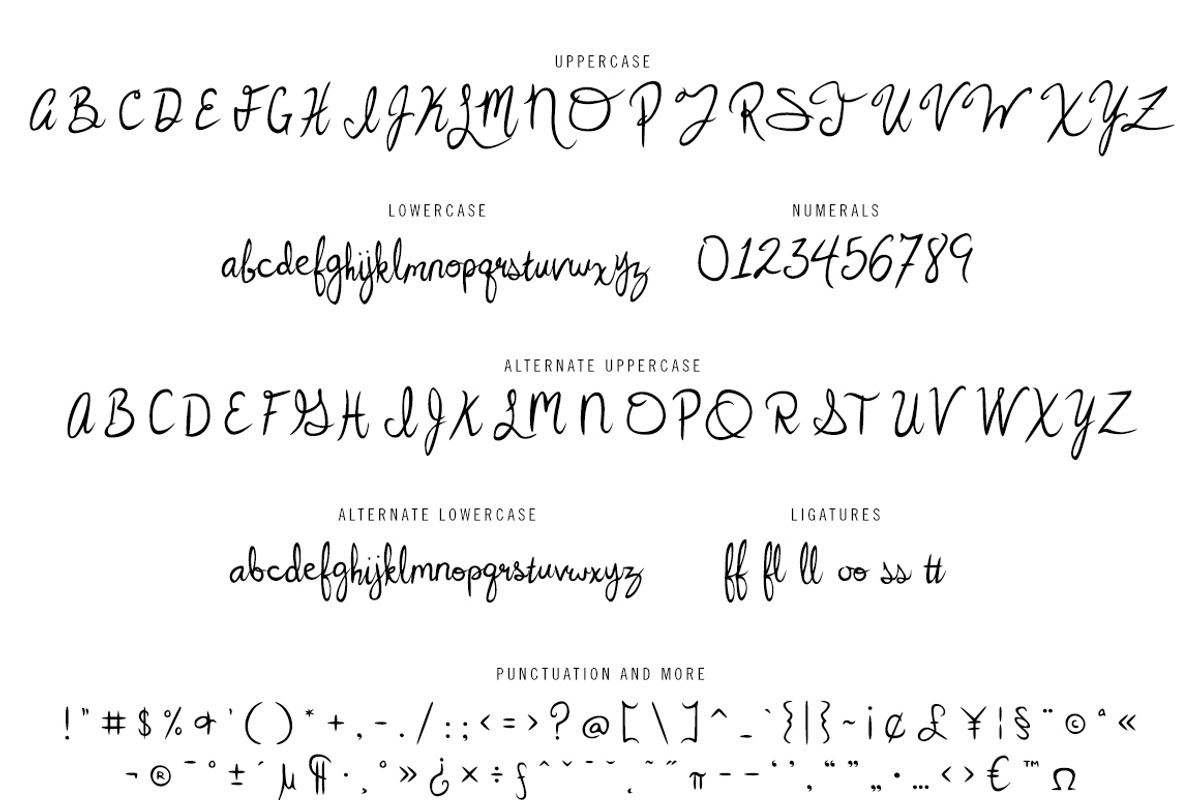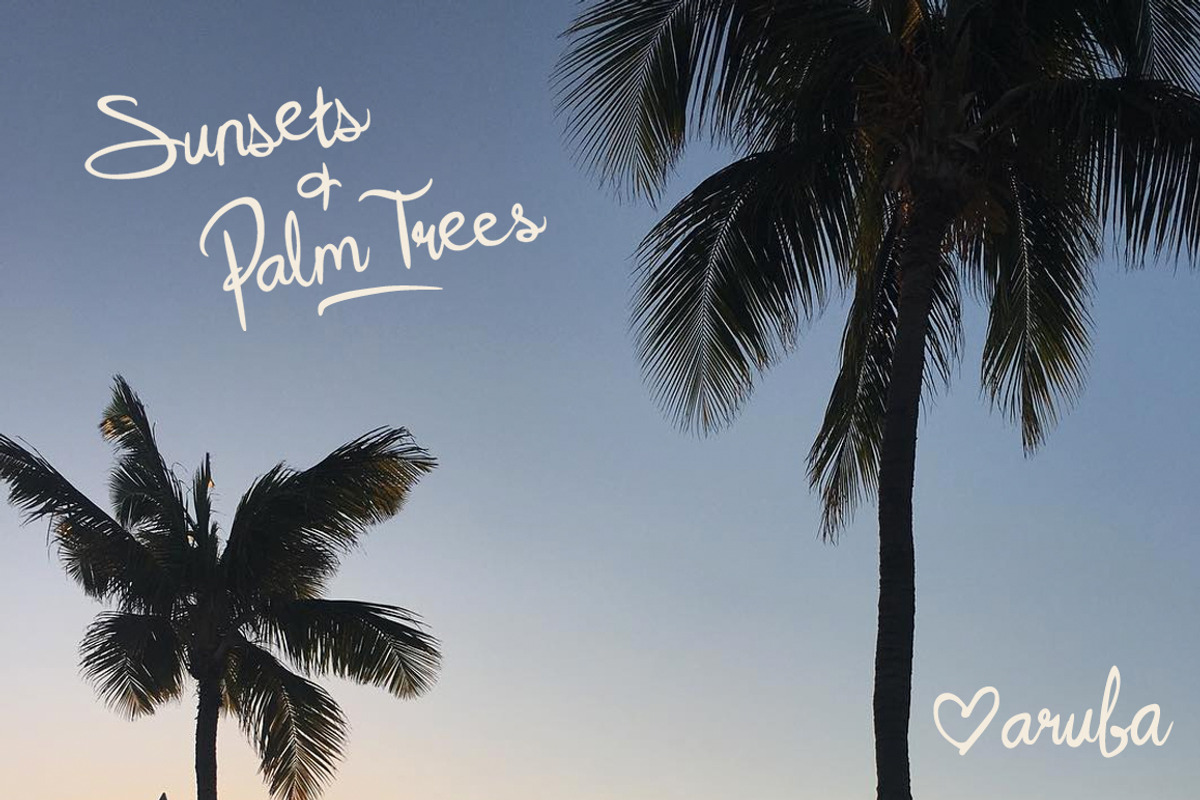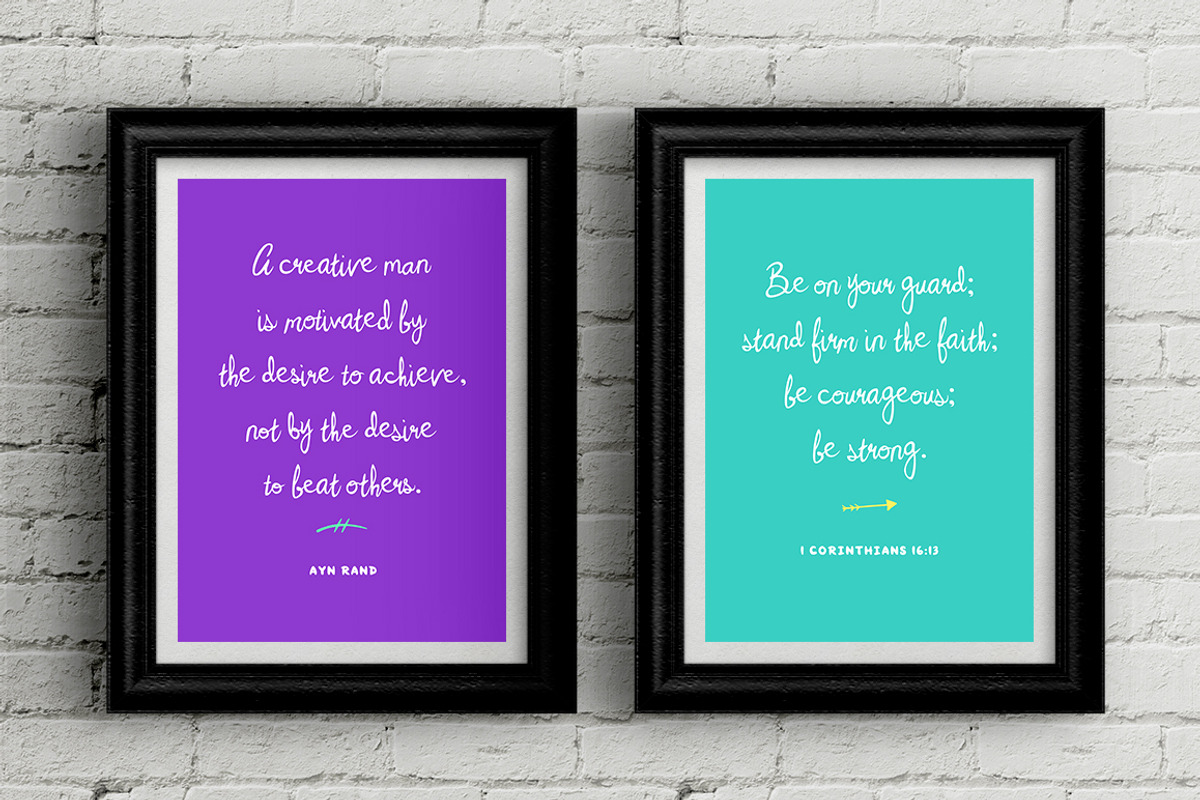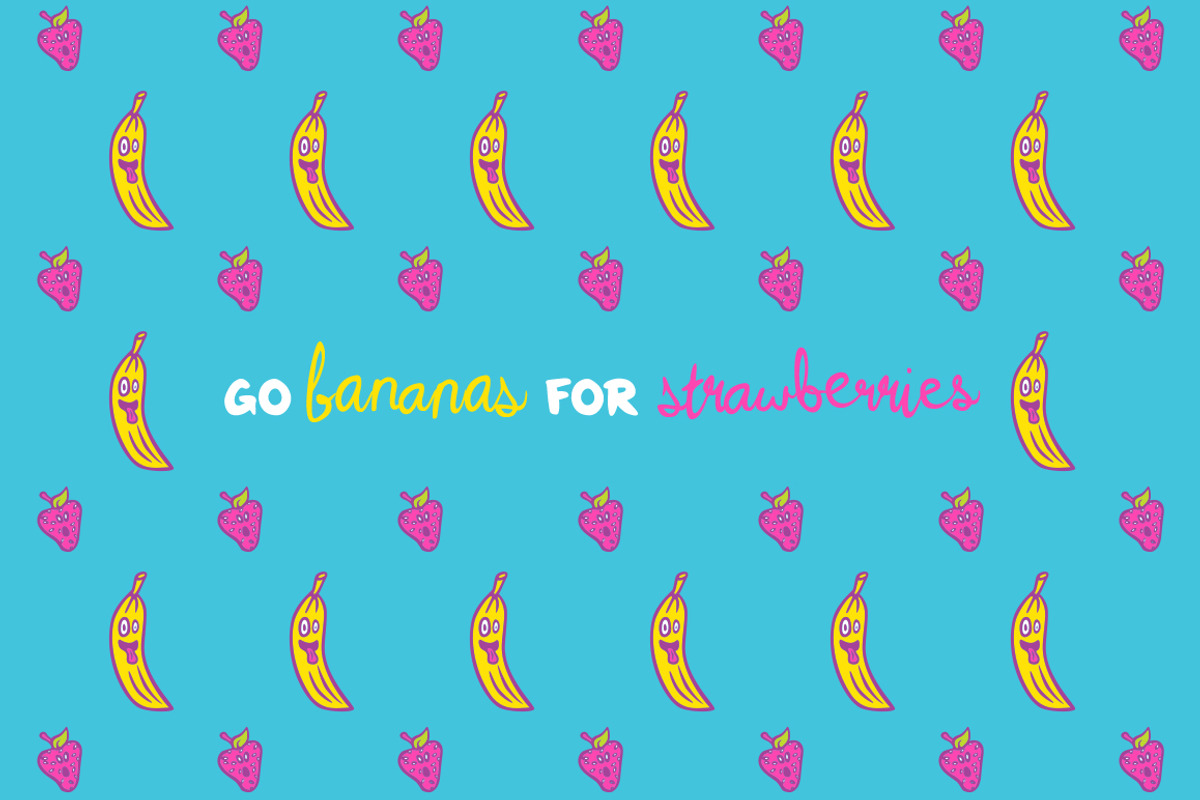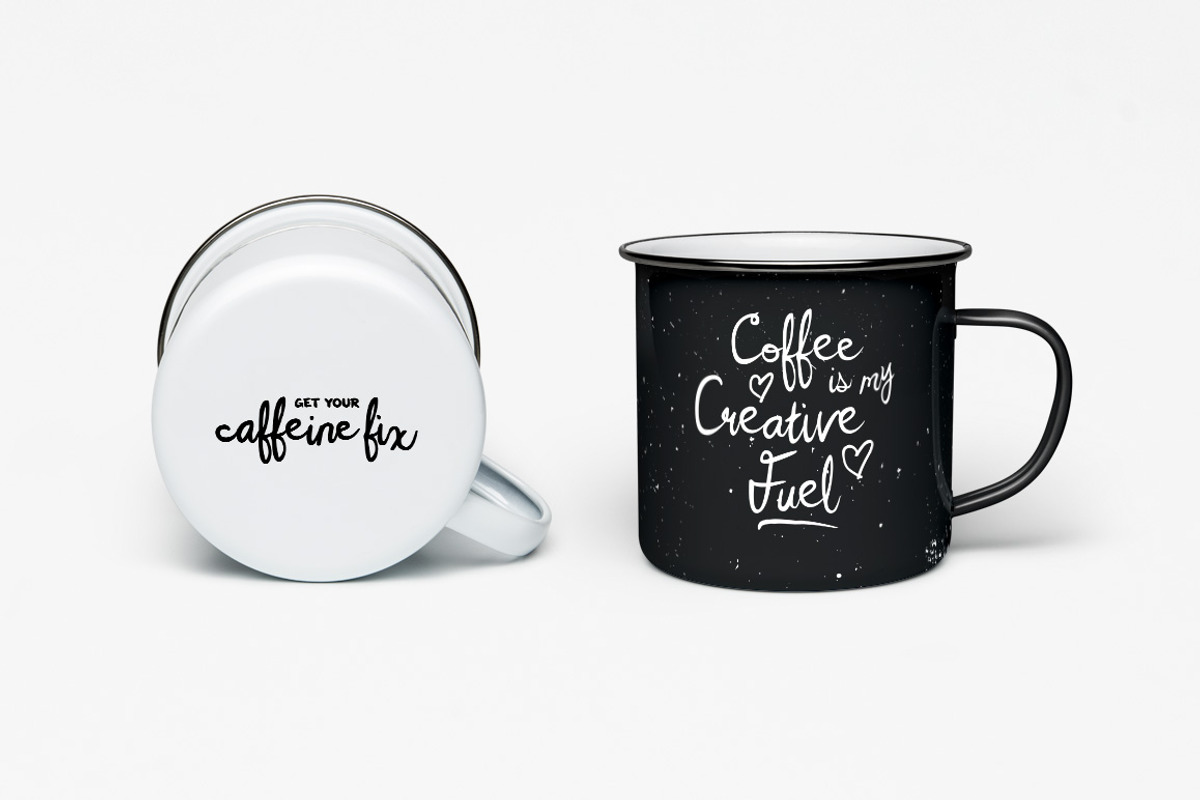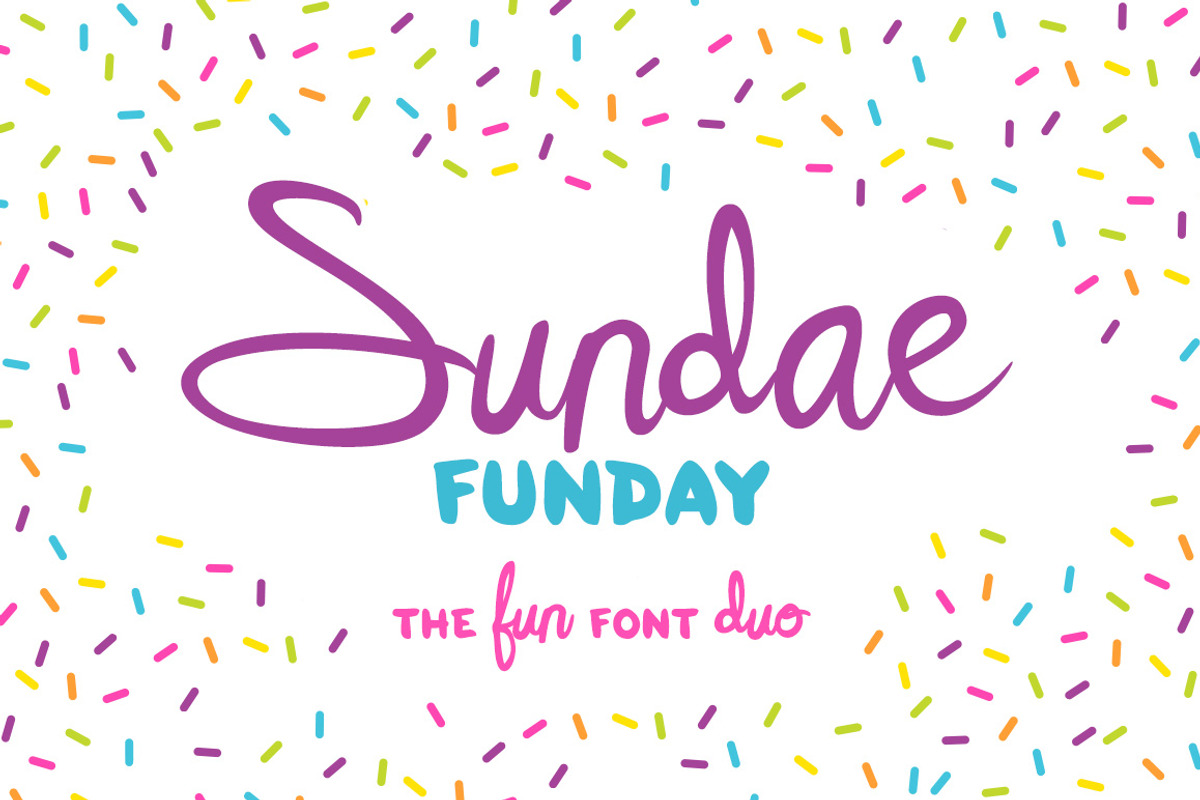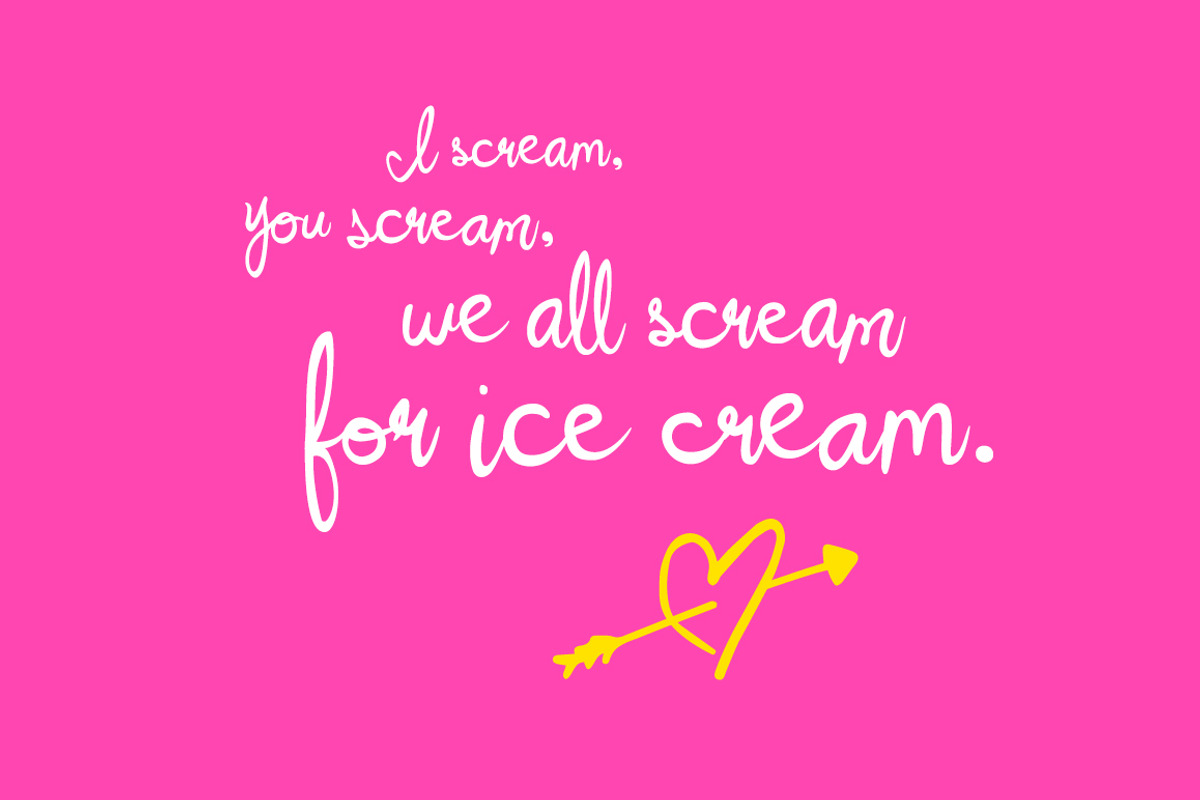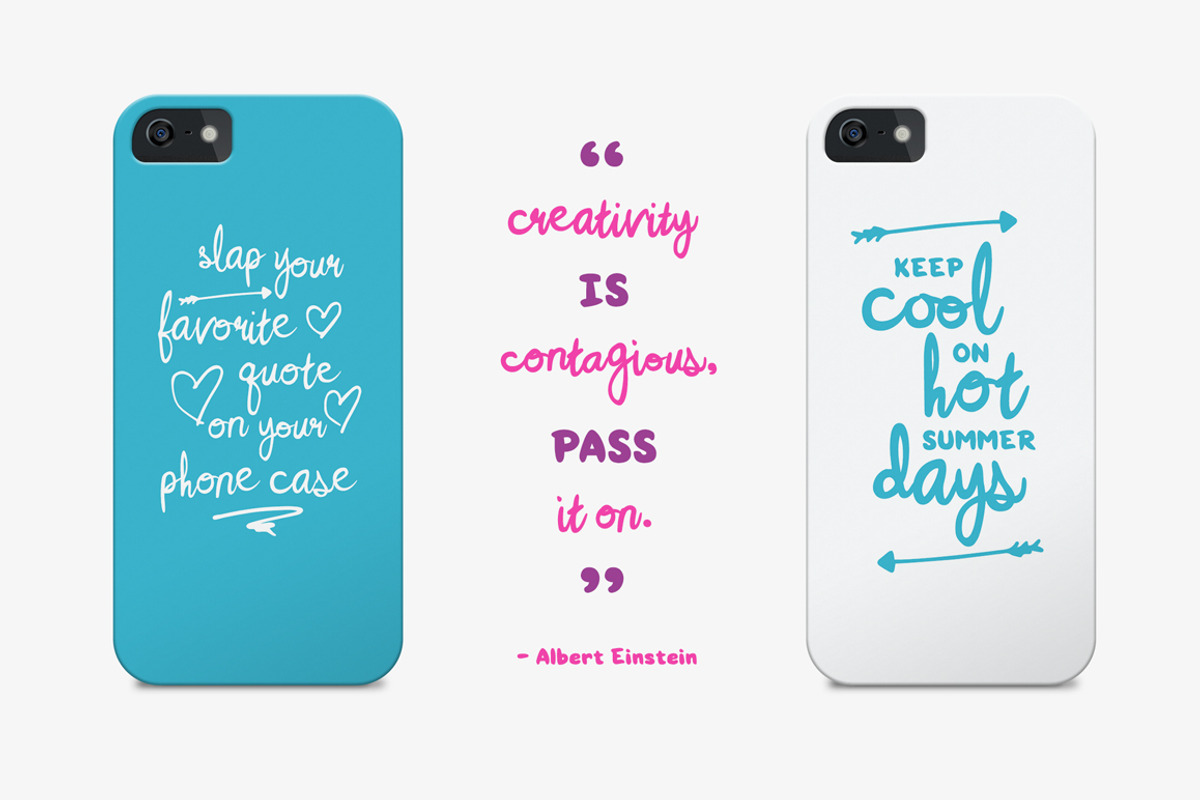
Sundae Funday Font Family
Sundae Funday Font Family by Scott Howard is a font selected for branding, posters, packaging, typography.
- This pack contains a fresh and playful font duo with extras!
- Font Family (otf and ttf formats of each): Sundae Funday Script - includes, two sets of uppercase and lowercase letters, ligatures, internat
- Sundae Funday Script Bold - includes, two sets of uppercase and lowercase letters, ligatures, international support, punctuation, and a wide
- Sundae Funday Display - full set of uppercase and lowercase letters, international support, punctuation, and a wide variety of extra charact
- Sundae Funday Decorative - includes hand drawn arrows, hearts, "xoxo", and swashes Note : To access the extra alternate letters, you will ne
Why Sundae Funday Font Family is worth a look
Sundae Funday Font Family by Scott Howard fits naturally into Branding, posters, packaging, typography.